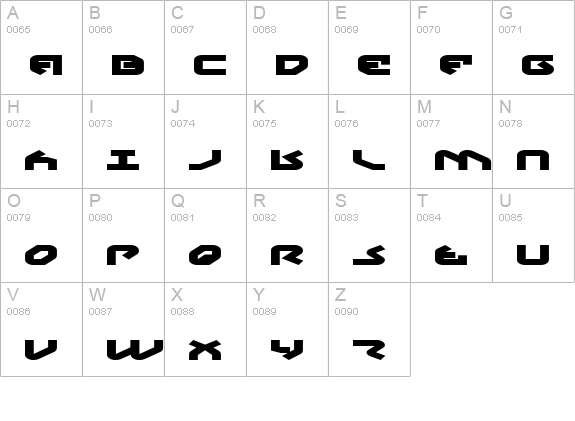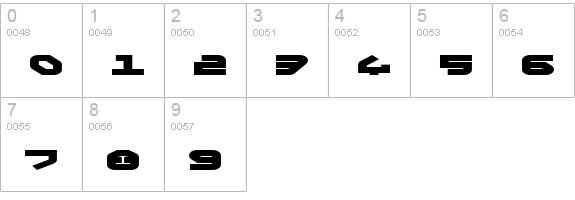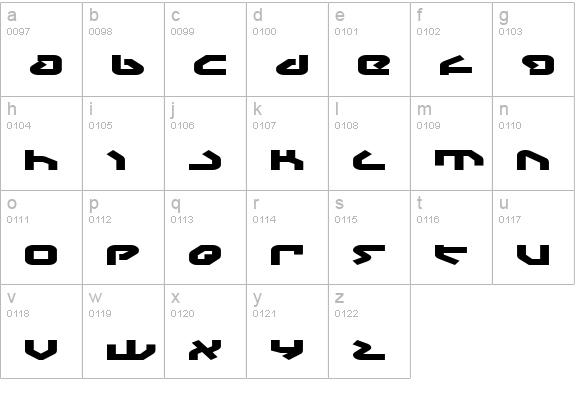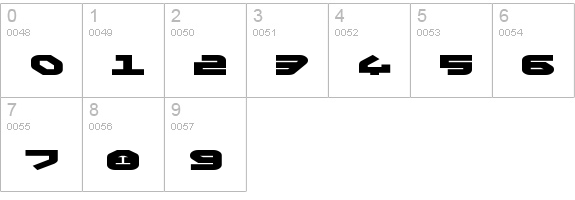
Yahren Expanded Bold Font Details
Yahren Expanded Bold is a strong, high-contrast, extended-width variant in the Yahren typeface family \xE2\x80\x94 well suited to headlines, attention-grabbing titles, and strong calls-to-action.
The Yahren Expanded Bold font is a modern and versatile typeface that exudes confidence and sophistication. Its bold and striking design makes it perfect for headlines, titles, and other attention-grabbing elements in your designs. With its clean lines and sharp edges, this font commands attention and leaves a lasting impression. Whether you are working on a branding project, a poster design, or a website layout, Yahren Expanded Bold will elevate your work to the next level. Its expanded width adds a unique touch to any design, making it stand out from the crowd. The best part? Yahren Expanded Bold is completely free to download at FontsMarket.com. This means you can add this powerful font to your collection without breaking the bank. Don't miss out on the opportunity to enhance your designs with the bold and impactful Yahren Expanded Bold font today!